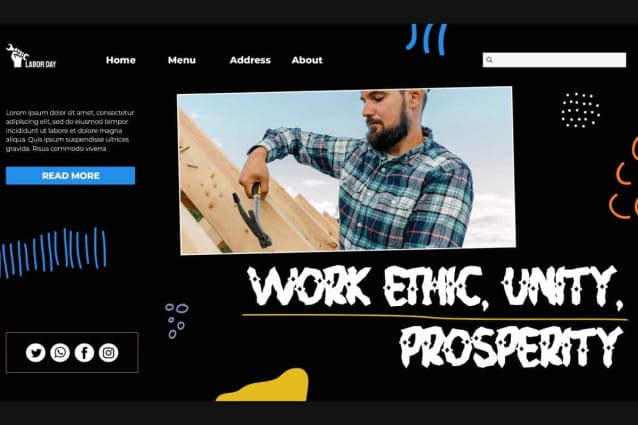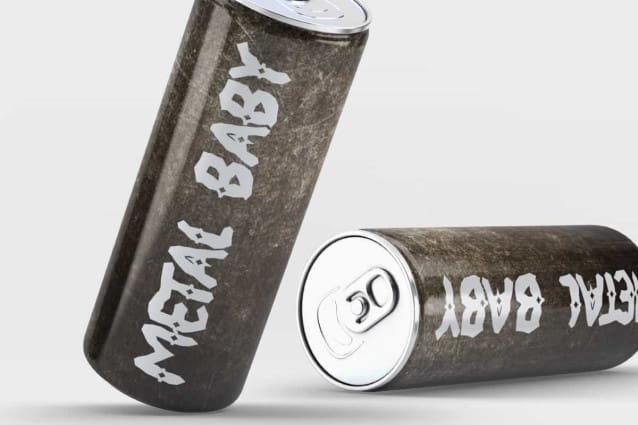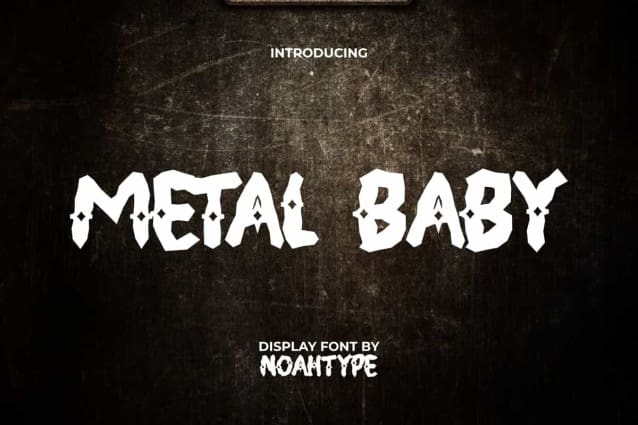
Metal Baby Font
Metal Baby Font is a graffiti style display font with a horror yet fun theme. Inspired from Aboriginal and Indian origin style. This font has thick and sharp characters, also the addition of small diamonds on each character makes it different. It will be perfect for any designs, such as brand image, cover, custom design, invitation, label, marketing material, menu, poster, printing, product packaging, quotes, signage, website, and many more!
Metal Baby Font includes full set of ALL CAPS for Uppercase and Lowercase Basic Characters, Numerals, Punctuation, and Symbol. This font will give amazing touch and also a perfect choice for many industries, such as accessories, advertising, barber shop, fashion, game, movie, printing, publishing, etc.